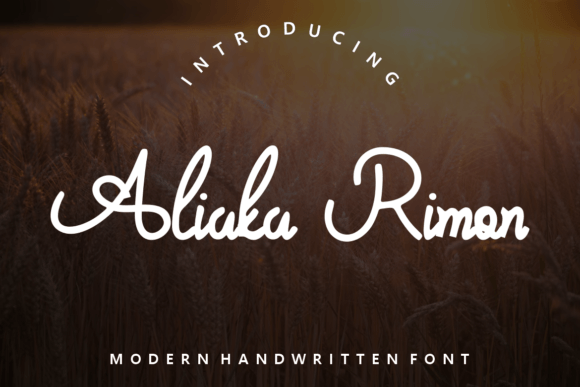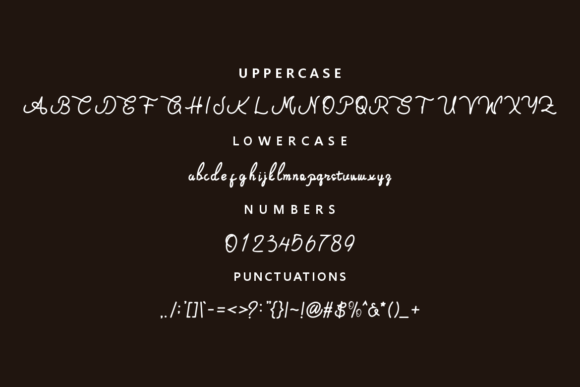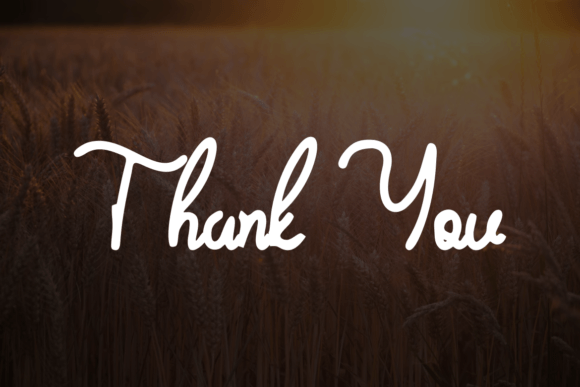
Discover the Elegance of Aliaka Rimon Font: Elevate Your Designs to New Heights
Are you on the hunt for a font that exudes sophistication, elegance, and a touch of modern flair? Look no further than the Aliaka Rimon Font. This exquisite handwritten font is masterfully designed to capture the hearts of designers and crafters alike, making it a true favorite in the world of typography. With its classy calligraphic influences and fresh, contemporary feel, Aliaka Rimon is the perfect choice for those looking to elevate their projects to the highest levels.
The Art of Elegance: Aliaka Rimon’s Unique Design
Aliaka Rimon’s design is a beautiful blend of traditional calligraphy and modern sensibilities. Each letter is carefully crafted to convey a sense of luxury, sophistication, and refinement, making it ideal for a wide range of applications, from high-end branding and advertising to elegant stationery and craft projects. The font’s flowing lines, delicate curves, and precise details come together to create a truly stunning visual experience that is sure to leave a lasting impression.
What Sets Aliaka Rimon Apart
So, what makes Aliaka Rimon stand out from the crowd? Here are just a few key features that set this exceptional font apart:
- Exquisite Handwritten Style: Aliaka Rimon boasts a beautiful, handwritten aesthetic that adds a personal touch to any project.
- Classy Calligraphic Influences: The font’s calligraphic roots give it a sense of elegance and sophistication that’s hard to find in digital fonts.
- Contemporary and Fresh: Despite its classic influences, Aliaka Rimon feels modern and fresh, making it perfect for designers looking for a font that’s both timeless and on-trend.
- Versatility: Whether you’re working on a branding project, crafting a beautiful piece of stationery, or creating a stunning visual display, Aliaka Rimon is the perfect choice.
Aliaka Rimon is a dream come true for designers and crafters looking for a font that can help them create something truly special. Whether you’re a professional designer or a hobbyist crafter, this exceptional font is sure to inspire your creativity and take your projects to new heights. With Aliaka Rimon, you can:
- Create Stunning Branding Materials: From logos and business cards to letterheads and packaging, Aliaka Rimon is the perfect choice for creating elegant, high-end branding materials.
- Design Beautiful Stationery: Add a touch of luxury to your stationery with Aliaka Rimon’s elegant, handwritten style.
- Craft Eye-Catching Visuals: Whether you’re creating social media graphics, flyers, or posters, Aliaka Rimon is sure to make your visuals stand out from the crowd.
Get Ready to Fall in Love with Aliaka Rimon
With its exquisite design, elegant aesthetic, and versatile applications, it’s no wonder that Aliaka Rimon is quickly becoming a favorite among designers and crafters. Whether you’re looking to elevate your branding, create stunning stationery, or craft eye-catching visuals, this exceptional font is sure to capture your heart and inspire your creativity.